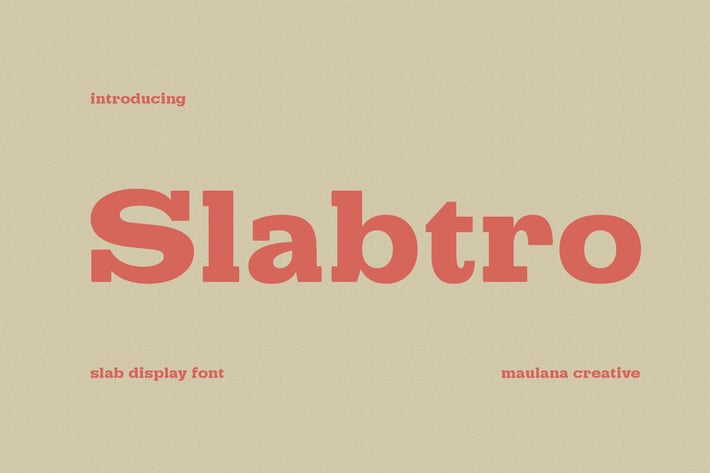
Slabtro Slab Serif Display Font
Slabtro is a retro vibes slab serif display font. Bold stroke, fun character with a bit of ligatures. To give you an extra creative work. Slabtro font support multilingual more than 100+ language. This font is good for logo design, Social media, Movie Titles, Books Titles, a short text even a long text letter and good for your secondary text font with script or serif. Make a stunning work with Slabtro font.